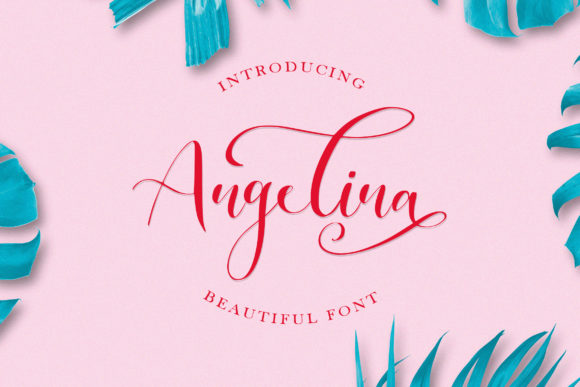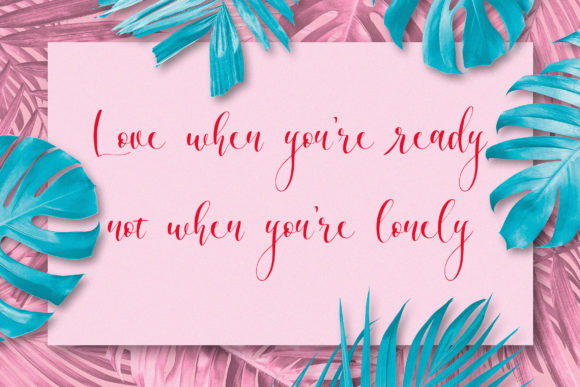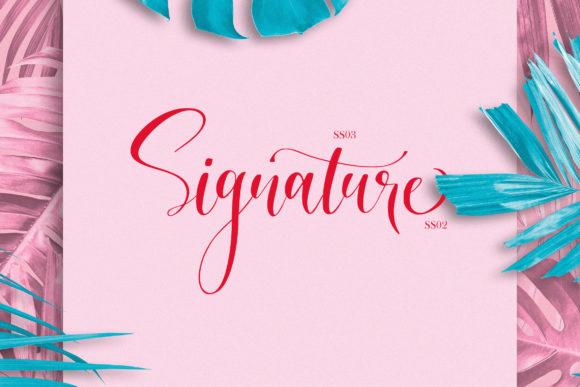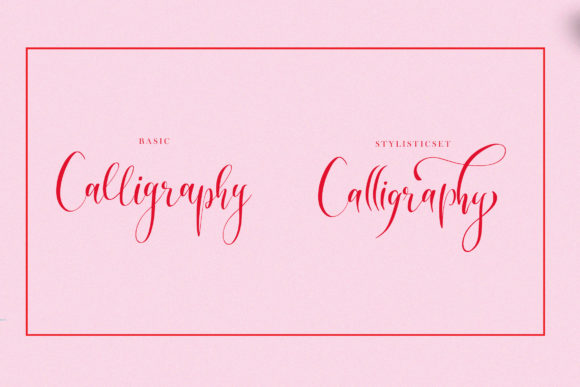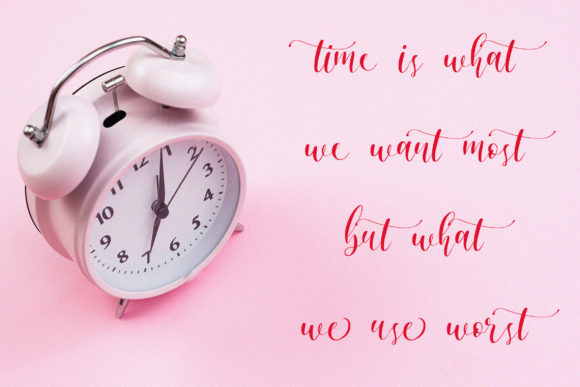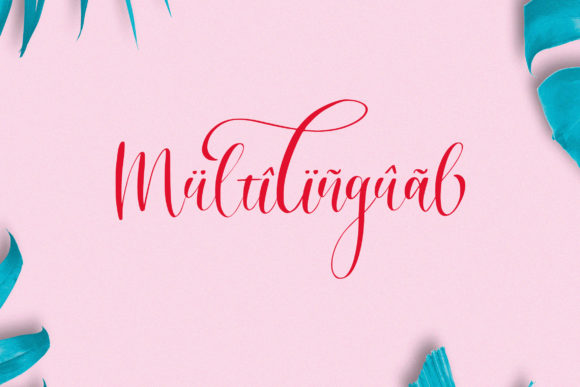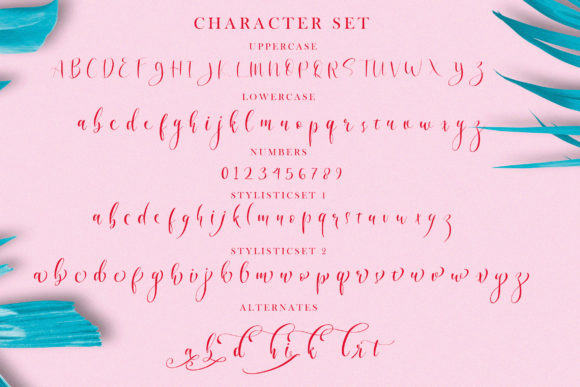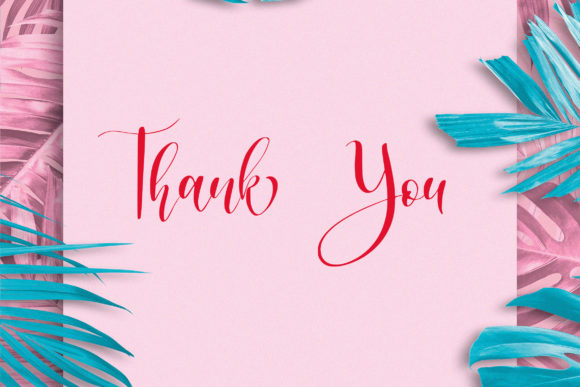
HomeScript FontsAngelina Font Script Fonts Angelina Font FacebookXPinterestWhatsApp Angelina Font Poster 2 Angelina Font Poster 3 Angelina Font Poster 4 Angelina Font Poster 5 Angelina Font Poster 6 Angelina Font Poster 7 Angelina Font Poster 8 About Angelina Font Angelina is a particularly sweet script that features incredible swashes, making it a one-of-a-kind crafting font! DOWNLOAD ON CREATIVE FABRICAThis font is sold and delivered by Creative Fabrica. Font Canyon may earn a commission if you buy through this link. People also explored Justin Kaylee Font Special Queen Font The Sallapan Font Lovely Creature Font Sayday Font Ultra Slim Font Restou Font Impending Disaster Highline Font 301 0 TagsAngelina Font Previous articleSweet Seventeen FontNext articleEntihay Font LEAVE A REPLY Cancel reply Comment: Please enter your comment! Name:* Please enter your name here Email:* You have entered an incorrect email address! Please enter your email address here Website: Save my name, email, and website in this browser for the next time I comment. Personal Use Free Pattern Personal Use Free Read more about this font Malinda Personal Use Free Read more about this font Krase Personal Use Free Read more about this font Bethania Personal Use Free Read more about this font BLOG Exploring Font Trends Shaping Communication in the Digital Era Fonts, like all design elements, are subject to trends. They play a crucial role in communicating a brand's personality,... 5 Fonts That Will Dominate Design Trends in 2026 How to Install and Use Fonts on Windows, macOS, and Web Projects Elegant Wedding Invitation Fonts – Handwritten & Script Fonts